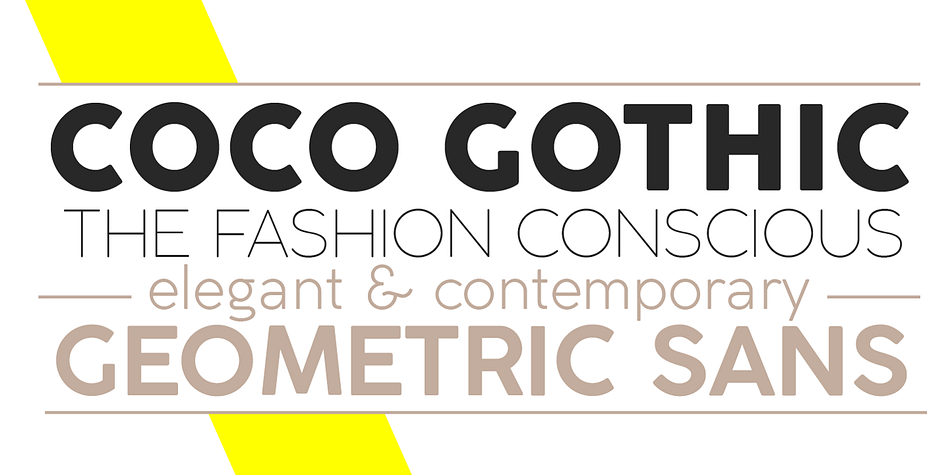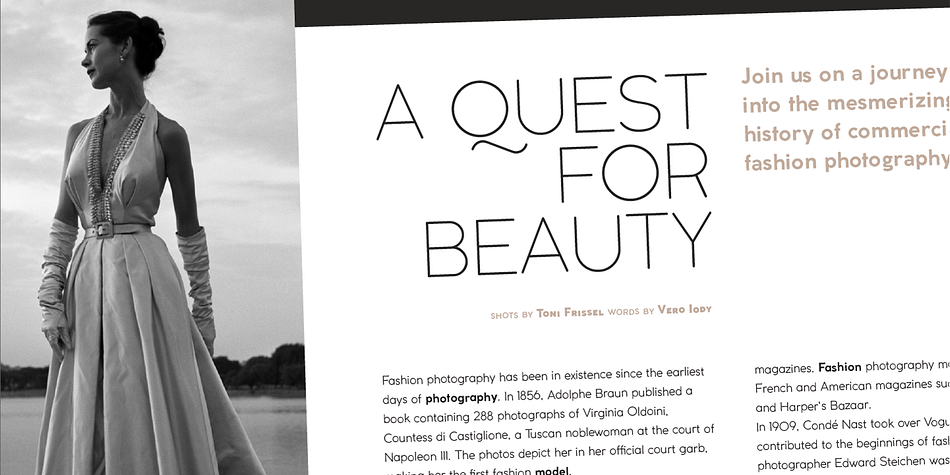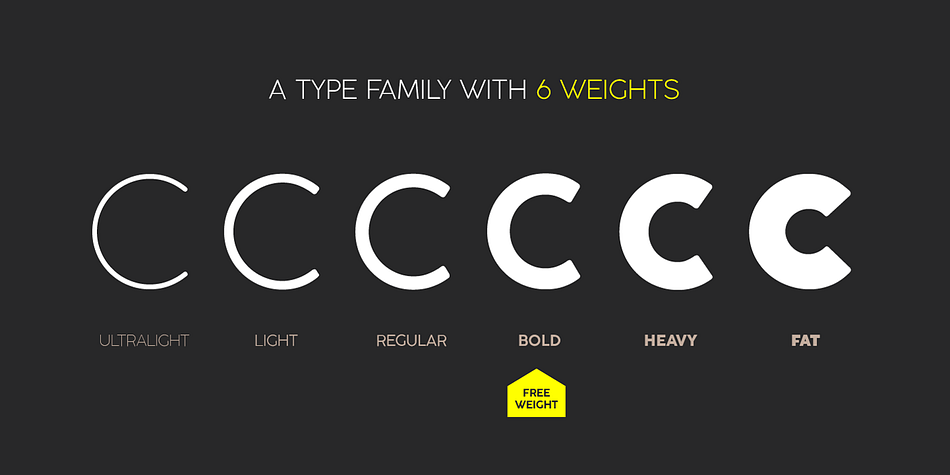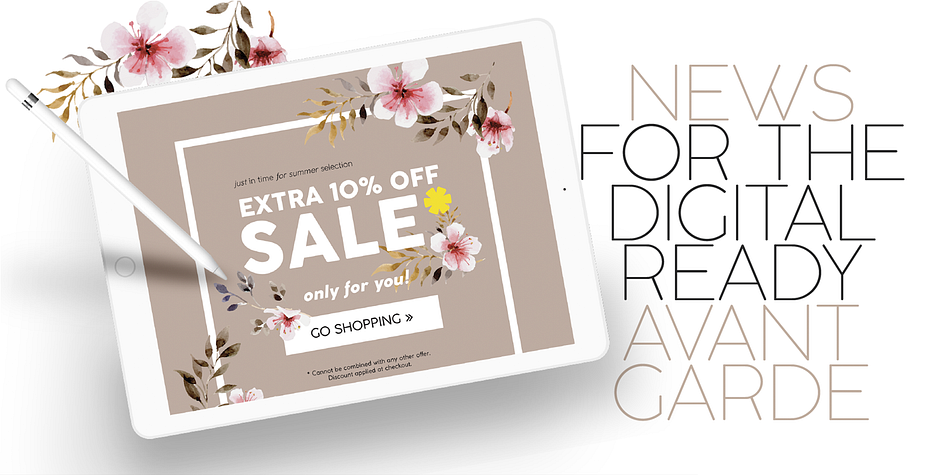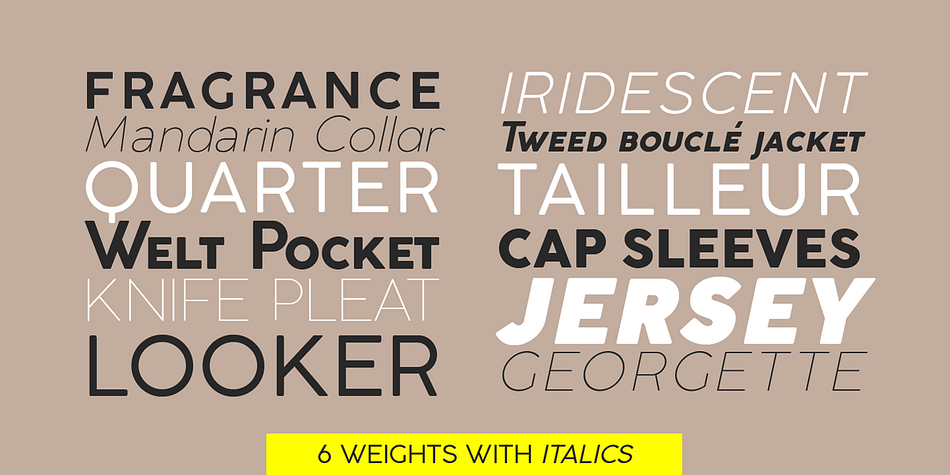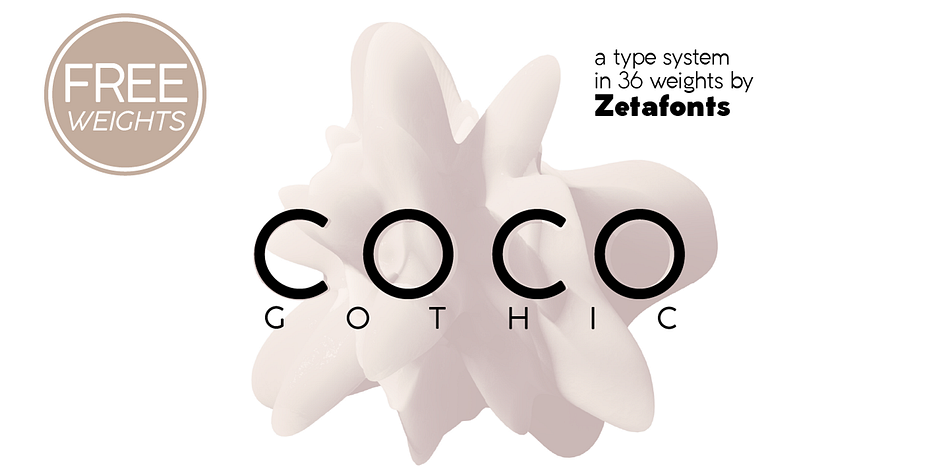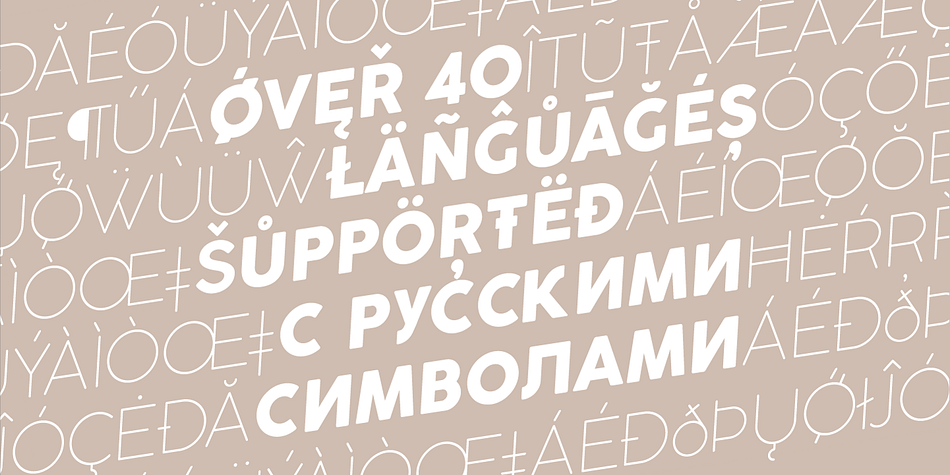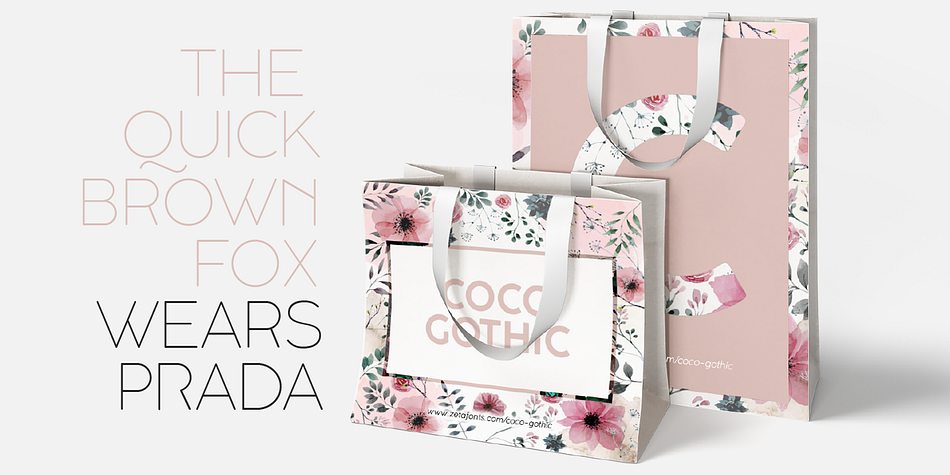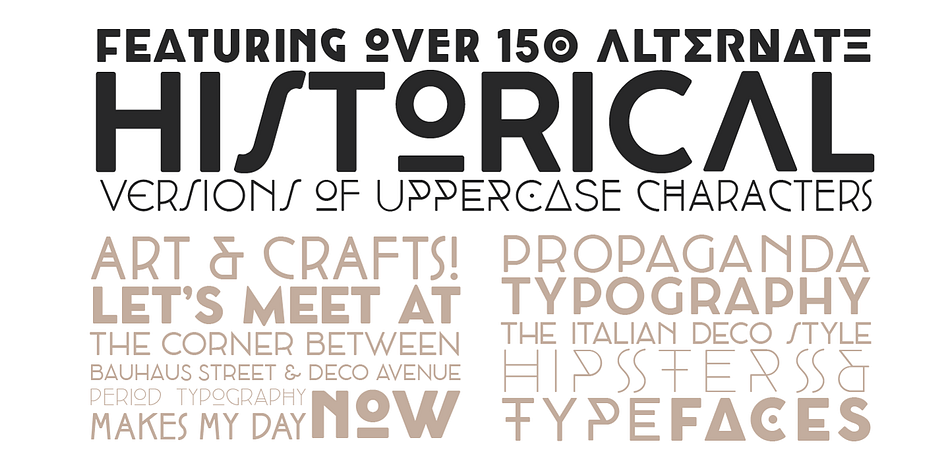
Designed by Cosimo Pancini, Coco Gothic is a sans serif font family. This typeface has thirty-six styles and was published by Zetafonts.
Coco Gothic is a contemporary take on the retro geometric sans serif style of early 20th century typefaces like Futura and Avantgarde. It comes in six weights with matching italics and features an extended character set with open type support for small caps, ligatures, alternates, European languages, Greek and Cyrillic alphabets for a total of 36 fonts ready to solve your design problems.
Equipped with a rich array of historical variants (for uppercase letters), Coco Gothic is also an encyclopedia of styles from the last century, ready to transform itself and adapt to the mood of your text. You can check a visual presentation of this type family on our Behance Coco Gothic Page.